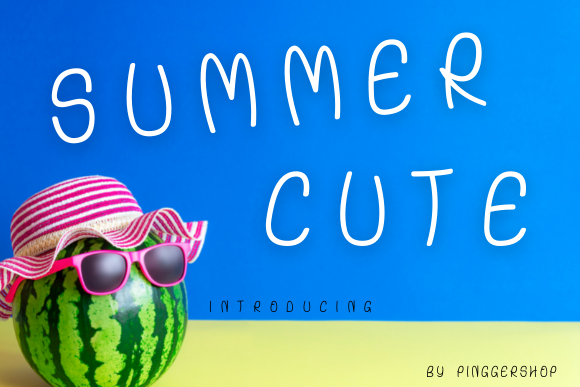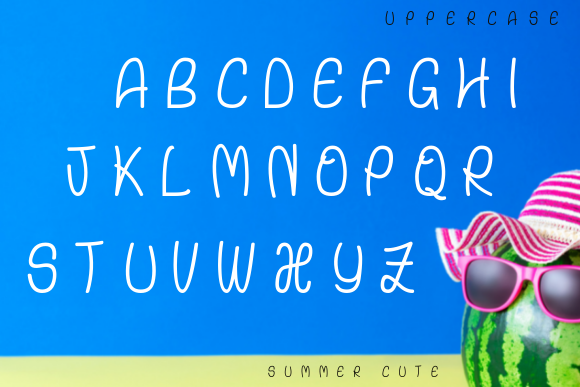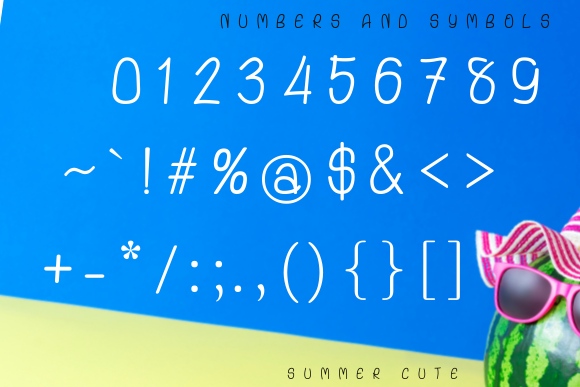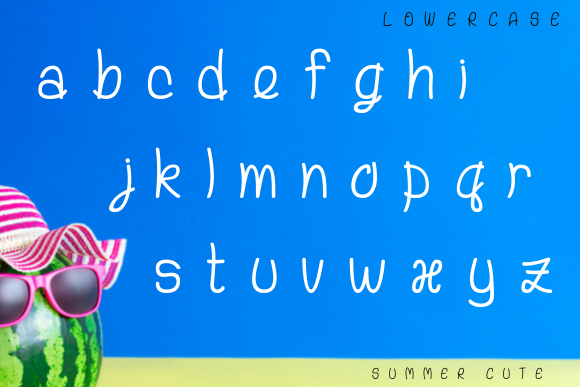
Summer Cute Font
About Summer Cute Font
Introducing Summer Cute, a neat, funny, and modern handwritten font that adds a touch of whimsy to your creative endeavors. Whether you’re using it for digital designs, presentations, creative ideas, or crafting cards, Summer Cute is a versatile and playful choice that brings a lighthearted feel to your projects.
The charm of Summer Cute lies in its neat and modern handwritten style, making it suitable for a variety of applications. The font’s whimsical touch adds a playful element to your designs, making them engaging and enjoyable.
For digital designs, Summer Cute becomes a key element in creating a fun and modern look. Whether you’re working on graphics for social media, digital presentations, or any other online content, this font brings a touch of cuteness and creativity.
In presentations, Summer Cute adds a lively and informal vibe, making your slides more approachable and visually appealing. The handwritten style contributes to a friendly and relatable atmosphere, capturing the attention of your audience.
Creative ideas come to life with the playful nature of Summer Cute. Whether you’re brainstorming, sketching, or jotting down notes, this font adds a touch of whimsy that sparks creativity and makes your ideas stand out.
Crafting cards is elevated with the cute and modern script of Summer Cute. Whether it’s birthday cards, invitations, or any other handmade creations, this font adds a personalized and charming touch that resonates with recipients.
Summer Cute is more than just a font; it’s a creative tool that infuses your projects with a sense of fun and modernity. Embrace the lighthearted charm of Summer Cute as you explore its potential in bringing a playful and delightful touch to your various creative endeavors.